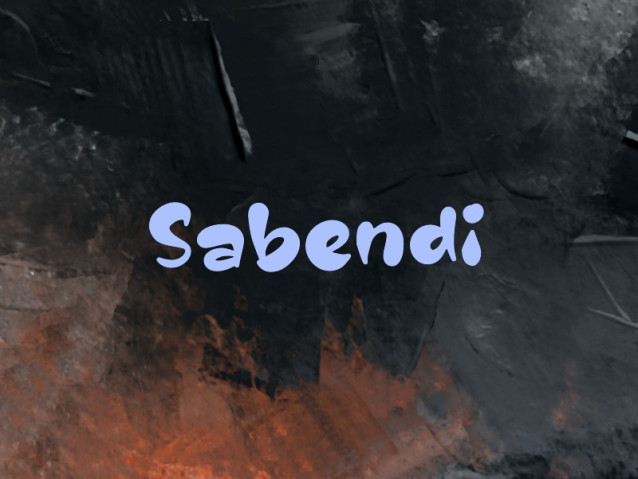
Sabendi Font
Sabendi Font is a simple and modern display font suitable for quotes, logos, headings, titles, and many more. Use it on any of your creative projects, and your designs will become outstanding!